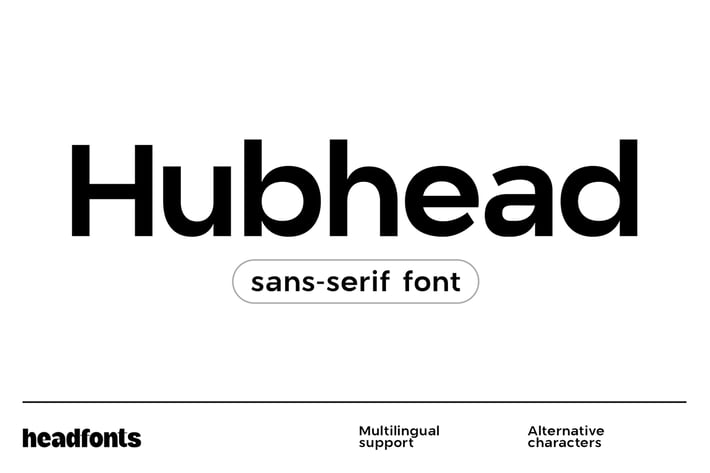
Hubhead Ggeometric Sans-Serif Font
Hubhead is a friendly, legible, geometric sans-serif font with soft rounded characters parts that pass over the x-height. This simple font was created to be easy to read and integrate in any design project that requires a charismatic, smooth sans by itself or as a companion for a decorative, display font. Hubhead is utilitarian and clean with minimal decorative accents. Hubhead has uppercase and lowercase characters, 278 glyphs, alternative glyph for letter "a" and extensive Latin script language support. This font features a single-story lowercase “g” and “a”, circular bowls, geometric construction and a overall contemporary appearance, that will definitely come in handy when designing high quality material with a minimal, professional look.